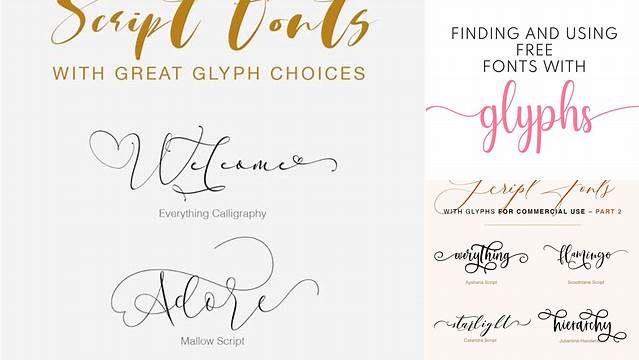
Free Script Fonts With Glyphs: The Ultimate Guide
Hey design enthusiasts! 👋 Ever found yourself lost in a sea of fonts, yearning for that perfect script that just speaks to your project? If you're nodding, then you're in the right place. We're diving deep into the world of best free script fonts with glyphs. These aren't just your run-of-the-mill typefaces; we're talking about fonts that come packed with extra characters – glyphs – to add that extra flair, personality, and uniqueness to your designs. Think of it as adding a secret ingredient to your creative recipe! 🤫 So, buckle up, because we're about to embark on a font-tastic journey to discover some amazing, free, and utterly gorgeous script fonts loaded with glyphs that'll make your designs pop! ✨
Best Free Script Fonts with Glyphs: What Makes Them Special?
Let's be real, guys. Finding the best free script fonts with glyphs isn't always a walk in the park. But what makes these fonts stand out from the crowd? It's the glyphs, baby! Glyphs are the extra characters – the swashes, the flourishes, the alternate letter forms – that elevate a script font from good to WOW! 🤩 These aren't just add-ons; they're integral to the font's personality. They allow you to customize your text, adding a touch of elegance, playfulness, or sophistication. When you use a font with glyphs, it's like having a custom-made design at your fingertips. You can create unique letter combinations, enhance the flow of your text, and make your designs truly memorable. But the best part? They're free! Yes, you heard that right. You can get access to some truly stunning fonts with glyphs without spending a dime. This opens up a whole world of design possibilities for everyone, from seasoned pros to enthusiastic beginners. Using best free script fonts with glyphs allows you to make your designs look more unique. The use of glyphs in these fonts makes the design look more professional. These are all elements that make the fonts really special.
Exploring the Beauty of Free Script Fonts with Extended Glyphs
Alright, let's dive deeper into what makes best free script fonts with extended glyphs so darn appealing. Think of it this way: you're painting a masterpiece, and glyphs are the extra brushes and colors you get to play with. 🎨 They give you the freedom to express your creativity in ways that standard fonts simply can't. For example, you might have a fancy invitation where the flourishes of certain letters connect beautifully, or a logo where a unique swash gives it instant recognition. The extended glyphs give you access to hundreds of different fonts. Every font is unique, so with more options comes more creativity.
Where to Find Top-Tier Free Script Fonts with Glyphs
Mastering the Art: Using Glyphs Effectively in Your Designs
Now that you know where to find the best free script fonts with glyphs, let's talk about how to use them like a pro. It's not just about choosing a pretty font; it's about making those glyphs work for your design. The key is balance and restraint. Think of glyphs as seasoning – a little goes a long way. Don't overdo it. Choose a few key areas where glyphs will add impact, like the beginning or end of a word, or the connection between two letters. Using them sparingly will make them even more effective.
Script Font Glyphs: Understanding the Technical Side
Free Script Fonts with Glyphs for Wedding Invitations: Elegance Unleashed
Wedding invitations are a prime example of where the best free script fonts with glyphs truly shine. They're all about elegance, romance, and setting the tone for a special day. Imagine a beautiful invitation, and the script font adds a touch of sophistication. A gracefully curved 'S' at the start of the names, or an elegant flourish at the end of the invitation text can instantly transform your design. These fonts, with their added glyphs, offer countless design options to create a unique and unforgettable invitation. They allow you to express your creativity and create a unique design.
Script Fonts with Glyphs for Logos: Crafting a Unique Brand Identity
Logos, guys, are the face of a brand. They need to be memorable, visually appealing, and reflect the brand's personality. Best free script fonts with glyphs can be a game-changer here. A well-chosen script font with unique glyphs can help a logo stand out from the crowd. You can play around with stylized letterforms, or use swashes to create a logo mark that's instantly recognizable. Remember, a logo is all about creating a visual identity. The fonts are designed to look stunning. With script fonts with glyphs, you can make stunning logos.
Free Script Fonts with Glyphs for Branding: Consistency is Key
Branding goes beyond just the logo, it's about creating a consistent visual language across all your marketing materials. To create a strong brand, you need to consistently use fonts with glyphs. By using the best free script fonts with glyphs across your website, social media, and print materials, you build a cohesive brand identity. The glyphs give you the ability to add visual interest. This consistency makes your brand instantly recognizable. Using a script font that has many glyphs can make the design more professional.
Free Script Fonts with Glyphs for Social Media: Captivating Your Audience
Social media is all about grabbing attention, so you need a great design. It's the perfect place to use best free script fonts with glyphs. Use a script font with unique glyphs to create eye-catching graphics for your posts. Play around with quotes, headings, and calls to action. Remember, visual communication is key on social media. When the script font has extended glyphs, you can customize your design even further.
Script Fonts with Glyphs for Web Design: Enhancing User Experience
Web design is all about creating a seamless and visually appealing experience for users. The fonts are used for the best experience. When you use the best free script fonts with glyphs for headings, subheadings, and other key elements on your website, you can add a touch of personality. You can also draw the user's attention to the elements that matter most. Make sure the font is readable, though.
How to Choose the Right Script Font with Glyphs
Choosing the best free script fonts with glyphs can be tough. Think about your project's goals. Is it a wedding invitation? A logo for a sophisticated brand? Or something else entirely? Consider the overall mood you want to create. Do you want something elegant, playful, or modern? Look at the glyphs that the font offers. Do they complement the overall design of your project? Take some time to experiment and see what works best. Remember to always check the license to make sure you can use the font for your project.
Understanding Font Licensing: Avoiding Legal Pitfalls
Font licensing can be tricky, but it's important to understand to avoid any legal headaches. As a general rule, most free fonts are licensed under a Creative Commons license or a similar open-source license. This usually means you can use them for personal and commercial projects. Before you use any font, always read the license carefully. Some fonts may have restrictions on how you can use them, such as not allowing you to embed them in commercial products. If you're unsure about the license, it's always best to err on the side of caution and contact the font designer or foundry to ask for clarification.
Font Pairing: Complementing Script Fonts with Other Typefaces
Pairing a script font with another typeface is like creating a dynamic duo. A good font pairing complements each other. In general, it's best to pair a script font with a simple, clean sans-serif font. This will create contrast and make your text easier to read. Avoid pairing script fonts with other script fonts, as this can make your design look cluttered and difficult to read. Experiment with different font pairings until you find something that works well. Font pairing makes your designs look better.
Best Free Script Fonts with Glyphs: A Curated Selection
Let's dive into a list of some of the best free script fonts with glyphs that I've found. Here are some suggestions to start your design journey:
- Playlist Script: A lovely, flowing script font with lots of beautiful swashes and ligatures. Perfect for wedding invitations and feminine designs.
- Great Vibes: A classic, elegant script with a vintage feel. Ideal for logos and branding projects that need a touch of sophistication.
- Dancing Script: A casual, playful script font that's perfect for headings and quotes.
These are just a few suggestions to get you started, but always explore to discover what suits you best.
Best Free Script Fonts with Glyphs: The Future of Design
I believe the best free script fonts with glyphs will continue to play an important role in the future of design. As designers continue to look for ways to differentiate their work, fonts with unique features, such as extended glyphs, will become increasingly popular. They give designers the freedom to express themselves in creative ways. The future of design is looking bright.
Staying Updated: Following Font Trends and News
The world of fonts is constantly evolving, with new designs and trends emerging all the time. To stay on top of the game, it's important to follow font news and trends. Subscribe to font blogs and newsletters, and follow font designers and foundries on social media. This will help you stay informed about the latest font releases, and discover new fonts with unique features like extended glyphs. This will help you make better designs.
Script Fonts with Glyphs: Troubleshooting Common Issues
Sometimes, you may encounter some technical glitches while using script fonts with glyphs. Here are some common issues and how to fix them:
- Glyphs not showing: Make sure your software supports OpenType features. You may need to enable them in your software settings.
- Font not installing: Double-check that you've downloaded the font correctly and that it's compatible with your operating system. Also, make sure that you are following the software directions correctly.
Script Fonts with Glyphs: Resources and Tutorials
If you're new to the world of script fonts with glyphs, or if you just want to deepen your knowledge, there are lots of resources and tutorials available online. Search for tutorials on how to use glyphs in your design software, or explore articles and blog posts about font pairing and typography. Many websites offer tutorials on their websites. The more you know, the better your designs will be.
Best Free Script Fonts with Glyphs: Conclusion
And there you have it, folks! We've explored the amazing world of best free script fonts with glyphs. From understanding their unique features to learning how to use them effectively in your designs, you're now well-equipped to create stunning visuals. So go forth, experiment with different fonts, and let your creativity run wild. Happy designing! 🎉